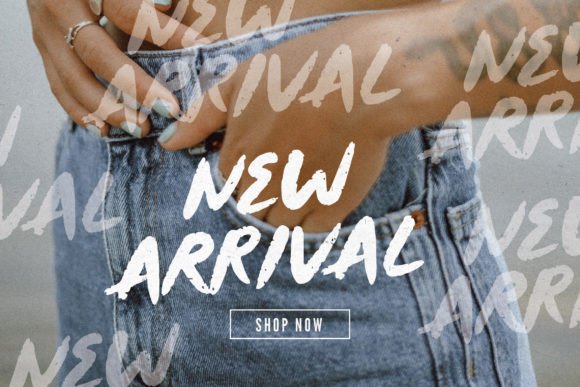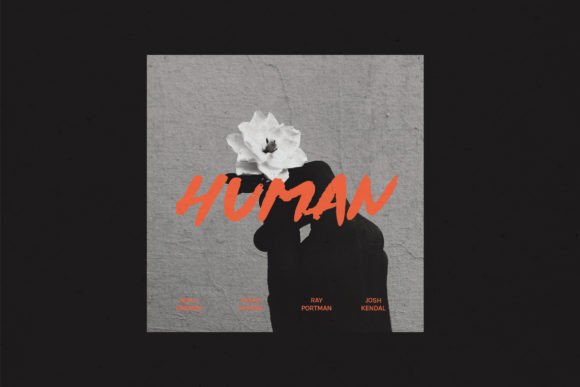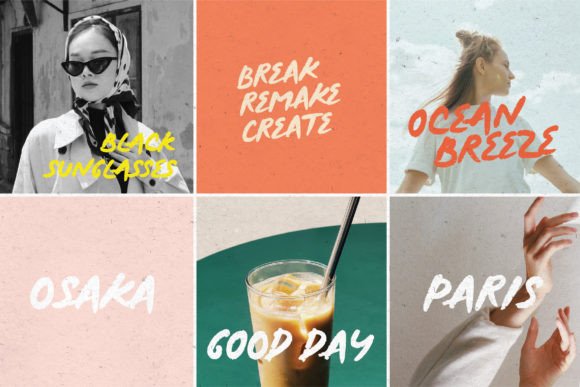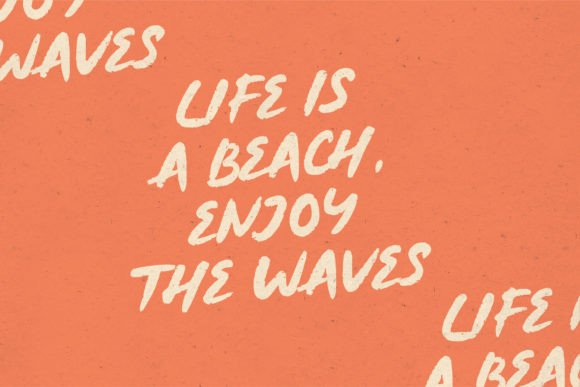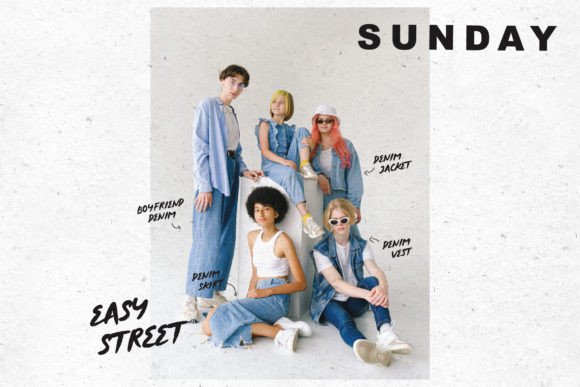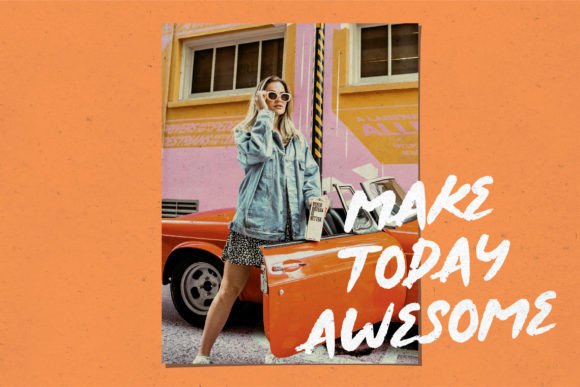
Introduction to Natural Sunset Font
As the day comes to a close, the sky is painted with hues of orange, pink, and purple, a breathtaking sight that sparks creativity and inspires imagination. For designers, this moment of natural beauty can be a catalyst for innovative ideas and fresh perspectives. The Natural Sunset Font is a beautiful brush display font that captures the essence of this serene moment, making it a valuable addition to any designer’s toolkit.
With its cool and stylish design, the Natural Sunset Font is perfect for logos, poster designs, illustrations, and more. This high-quality font is a design resource that will elevate your creative projects to new heights. Whether you’re working on a free download or a paid project, the Natural Sunset Font is sure to make a lasting impression.
- Unique Characteristics: The Natural Sunset Font features a unique blend of modern and natural elements, making it perfect for creative projects that require a touch of elegance and sophistication.
Honest Review: Natural Sunset Font
I recently stumbled upon the Natural Sunset Font, and I must say it’s a great addition to any designer’s arsenal. The high-quality design makes it perfect for creative projects that require a touch of elegance and sophistication.
- ⚠️ Limited font variations, which may not be ideal for projects requiring multiple font styles.
Overall, I’m impressed with the Natural Sunset Font. It’s a great design resource that can elevate any creative project. While it may have some limitations, its high-quality design and free download make it a must-have for designers.
The Natural Sunset Font is ideal for use in a variety of creative projects, including:
- Travel brochures and advertisements
- Photography portfolios and exhibitions
Is the Natural Sunset Font suitable for high-resolution designs?
Yes, the Natural Sunset Font is designed to be high-quality and scalable, making it suitable for use in high-resolution designs. The font’s crisp and clear lines ensure that it looks great at any size, from small text to large headings.